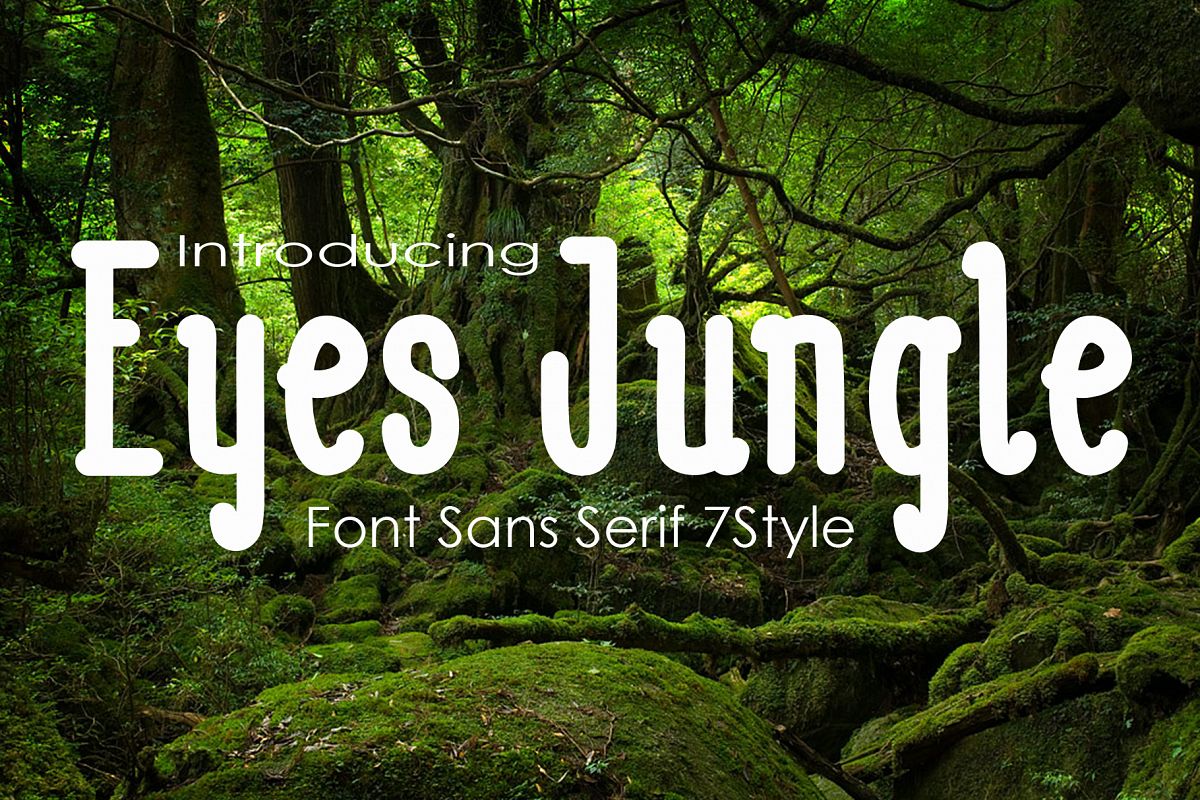
Eyes Jugle Family Font
Eyes Jugle  is Font Family 7 Style new sans serif font has a sleek typeface, font is very simple and easy to manipulate: logos, slogan and made in advertising messages,wedding invitation, t-shirt, letterhead, signage, lable, news, posters, badges etc.